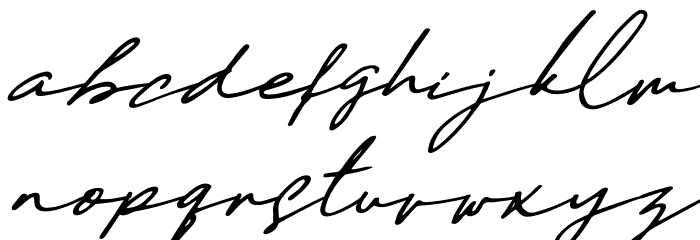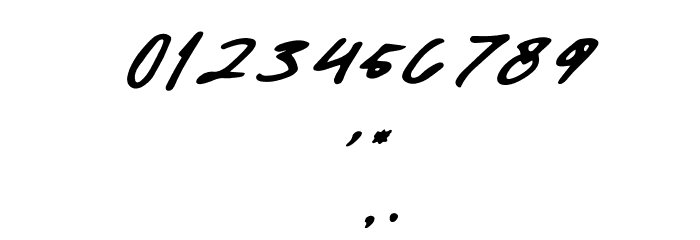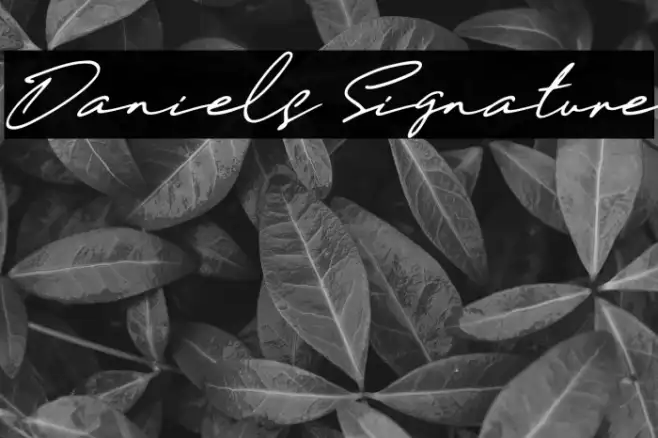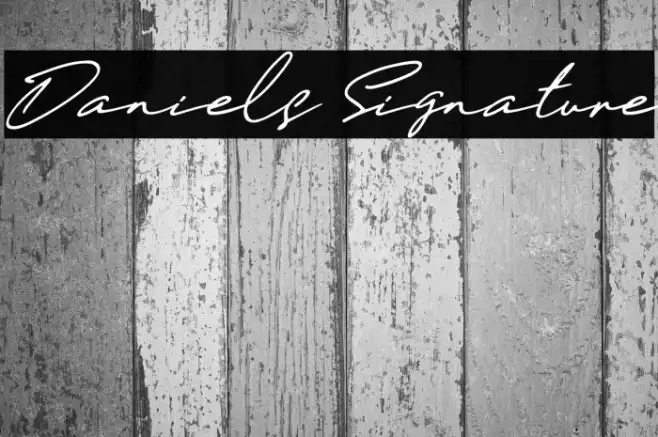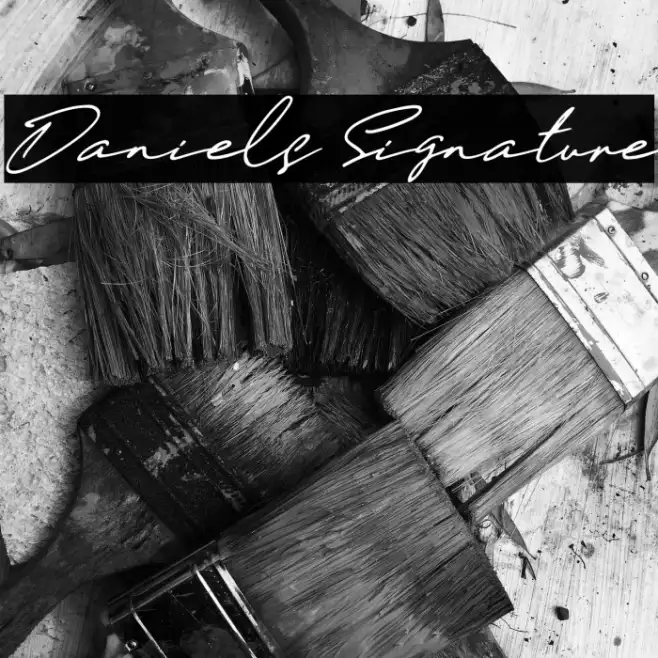
Daniels Signature Font
This font exudes a personal and elegant touch, reminiscent of a handwritten signature. The characters are fluid and connected, creating a seamless flow that mimics natural handwriting. The uppercase letters are bold and expressive, while the lowercase letters maintain a consistent and smooth appearance. The numbers are clear and legible, maintaining the same stylistic flair as the letters. The special characters are thoughtfully designed to complement the overall aesthetic. This font is perfect for projects that require a personal, sophisticated, and artistic touch.
A fluid, elegant script font that mimics a handwritten signature.
- Proposed Projects: Ideal for wedding invitations, personal branding, logos, and greeting cards.
- Category: Script
- Character Spacing: Tight
- Overall Style: Elegant
- Use Case: Logos, Invitations, Personal Branding